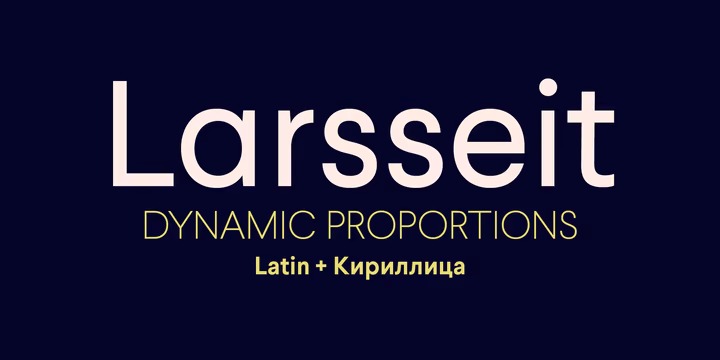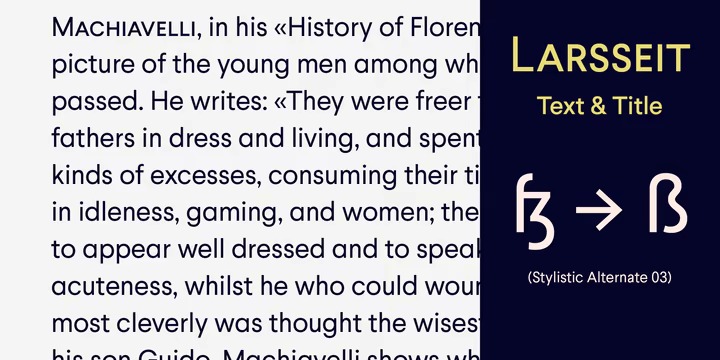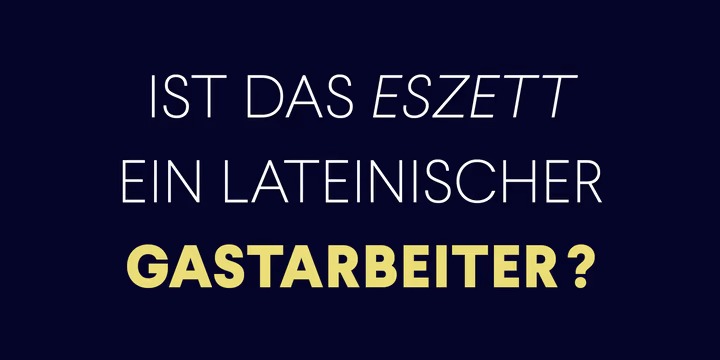
Larsseit Sans Serif Font
This is a geometric mid century modern sans serif font that works well for big bold headlines on posters, as well as small body copy. Larsseit emphasizes cleanliness, readability and objectivity. The Larsseit family includes 6 weights, from UltraThin to Black, with their corresponding italics and Small Caps. Each font includes OpenType Features such as Proportional Figures, Tabular Figures, Numerators, Superscripts, Denominators, Scientific Inferiors, Subscript, Ordinals, Ligatures and Fractions.